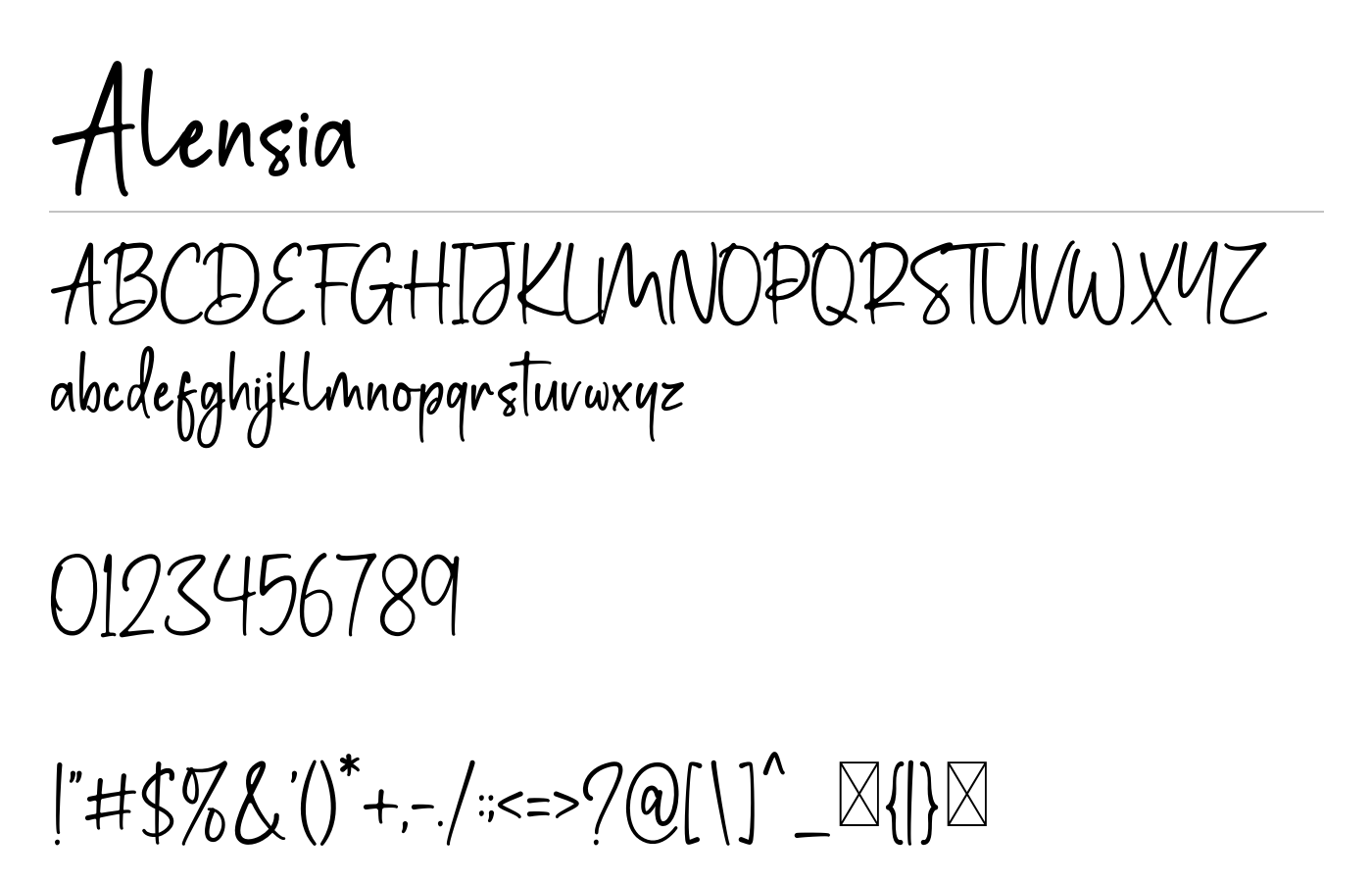
Alensia is a casual, handwritten sans serif font with a light weight and tall, narrow letterforms that give it an airy, approachable feel. Its smooth, flowing strokes and slightly irregular shapes create a friendly and personal touch, making it perfect for informal branding, creative projects, and playful headlines where a humanistic and relaxed vibe is desired. This font works well in designs that aim to convey warmth, creativity, and a handcrafted look.
Alensia Font
About Alensia Font
| Font family | Alensia Font |